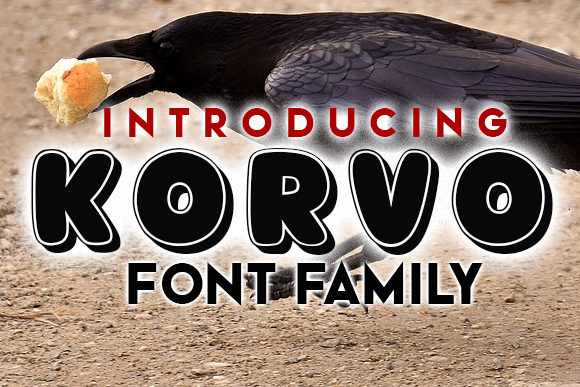
Unleash the captivating allure of Korvo, a display font meticulously crafted to ignite your creative spark and leave a lasting impression on any visual masterpiece. With its bold presence and elegant curves, Korvo transcends the boundaries of ordinary typefaces, inviting you to embark on an extraordinary typographic journey.
Korvo's unmatched versatility knows no bounds, effortlessly adapting to a symphony of design endeavors. From captivating posters that command attention to alluring flyers that entice and persuade, Korvo's presence elevates every creation to new heights of visual excellence. Its captivating strokes dance across the page, captivating the gaze and igniting the imagination.
Step into a realm of infinite design possibilities with Korvo, where your creativity flourishes and your vision takes flight. Allow its enchanting characters to weave a tapestry of visual intrigue, transforming your designs into captivating works of art.
Crafted with precision and passion by the visionary mind of vladimirnikolic, Korvo embodies the essence of typographic artistry. Its every curve and stroke has been meticulously designed to evoke a sense of wonder and inspire boundless creativity.
Whether you're a seasoned design maestro or embarking on your typographic odyssey, Korvo is your steadfast companion, empowering you to unleash the full potential of your imagination. Its intuitive nature and user-friendly essence make it accessible to all who seek to elevate their designs to new heights of brilliance.
So, surrender to the allure of Korvo and let your creative spirit soar. Discover the boundless possibilities that await you with this exceptional display font, meticulously crafted to captivate and inspire. Embrace the power of Korvo and transform your designs into breathtaking masterpieces that leave a lasting legacy.